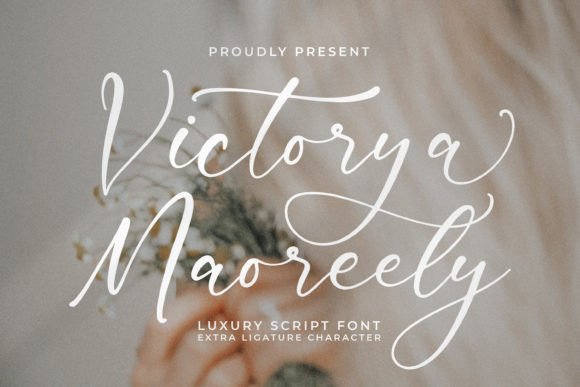
Step into the world of refined elegance with Victorya Maoreely, a script font that embodies luxury and sophistication. This exquisite creation by integritypestudio is more than just a font; it's an artistic masterpiece that transforms your designs into captivating works of art.
With its graceful curves and undeniable charm, Victorya Maoreely is the perfect choice for those seeking a touch of elegance in their projects. Whether you're a designer, a business owner, or simply someone with a passion for aesthetics, this font will elevate your work to new heights.
Imagine your logos, branding, and homeware designs adorned with the intricate details of Victorya Maoreely. Picture your product packaging, mugs, and quotes radiating an aura of opulence. Let your posters, shopping bags, and t-shirts speak volumes with their luxurious appeal.
Envision your covers books, business cards, and invitation cards exuding an air of exclusivity. Allow your greeting cards, labels, and photography to captivate with their refined beauty. Make your watermarks, special events, and all your other luxury projects shine with a premium touch.
Victorya Maoreely is more than just a font; it's a gateway to a world of elegance and sophistication. Its versatility knows no bounds, making it the perfect choice for a wide range of projects. Its meticulous craftsmanship ensures that every letter, every stroke, and every curve is a testament to the artistry of its creator.
With Victorya Maoreely at your disposal, you'll unlock a realm of creative possibilities. Its ability to transform ordinary designs into extraordinary works of art will leave you breathless. So why settle for mediocrity when you can bask in the glory of true luxury?
Elevate your designs to new heights with Victorya Maoreely, the ultimate font for those who appreciate the finer things in life. Let your creativity soar and experience the exquisite beauty that awaits you. Indulge in the world of refined elegance, and let Victorya Maoreely be your guide.